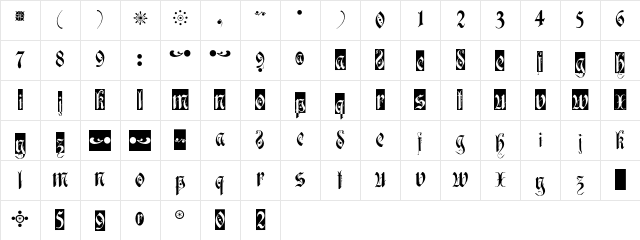
Albany Telegram
Style: Telegram
Albany Family
Albany Telegram
Design Context for Albany
Albany is a composed and adaptable typeface that performs quietly and consistently across a wide range of design contexts.